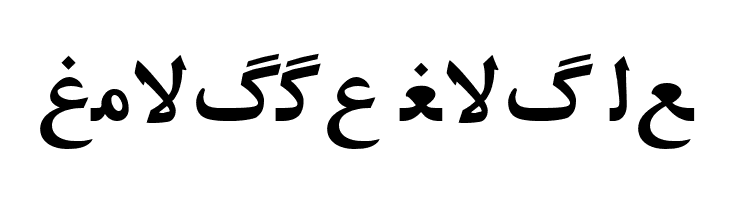
A modern Arabic script font with elegant curves and clear numerals.
An elegant Arabic script font with flowing, connected letters and ornamental details.
Handwritten, calligraphic Arabic numerals with expressive strokes.
A traditional Arabic script with smooth, flowing lines and moderate contrast, ideal for readability.
A decorative font with intricate, ornate details reminiscent of Arabic calligraphy.
An elegant Arabic script font with traditional calligraphic style.